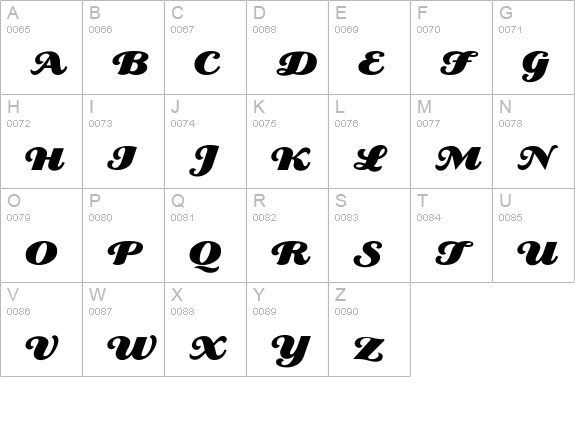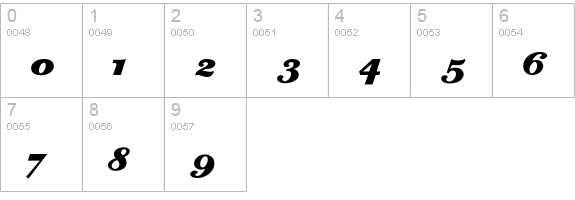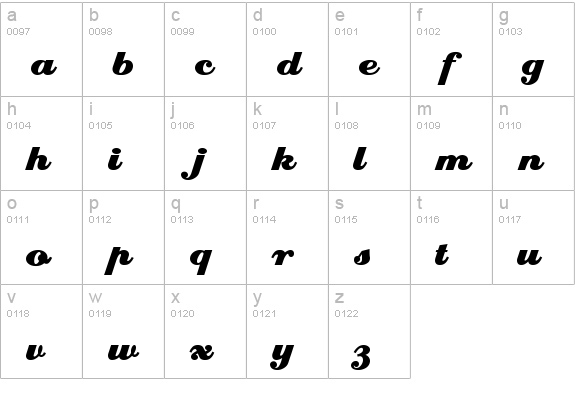
Introducing Creampuff font, a delightful and whimsical typeface that is sure to add a touch of sweetness to your designs. With its soft curves and playful letterforms, Creampuff brings a sense of joy and lightheartedness to any project. This charming font is perfect for creating eye-catching headlines, greeting cards, invitations, and more. Whether you're designing for a children's book, a bakery logo, or simply want to add a touch of fun to your personal creations, Creampuff is the ideal choice. What's even better is that Creampuff is available for free! That's right, you can freely download this delightful font at FontsMarket.com. Now, you can enjoy the creative freedom without worrying about breaking the bank. Creampuff offers a variety of stylistic alternates, ligatures, and swashes, allowing you to customize your designs and create a truly unique look. Its versatility and flexibility make it suitable for a wide range of projects, from branding to social media graphics. So why wait? Unleash your creativity and bring a little sweetness to your designs with Creampuff font. Download it for free at FontsMarket.com and let the delightful charm of this font captivate your audience.